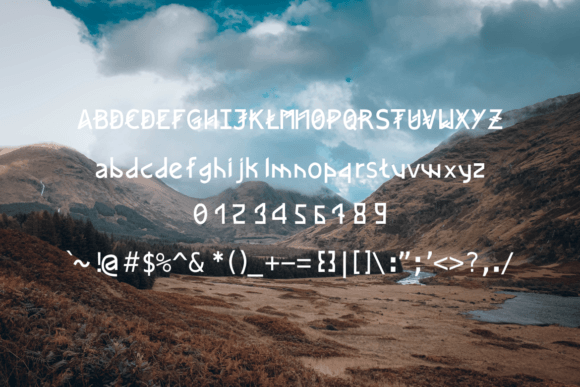
Enter Anamis Font, a cool and whimsical sans serif display font that adds a touch of magic to any project. Designed to add a playful twist to your most creative ideas, Anamis Font is the perfect companion for designers looking to push the boundaries of their work. Whether you’re working on a branding project, a social media campaign, or a simple poster, Anamis Font is sure to elevate your design and leave a lasting impression.
Anamis Font Key Features
- Unique Characteristics: Anamis Font boasts a unique blend of modern and vintage elements, featuring elegant curves and subtle geometric patterns, making it an ideal choice for creative and artistic projects.
Anamis Font Review
I recently had the chance to work with the Anamis Font, and I must say, it’s an interesting addition to any designer’s toolkit. ✨ One of the things that I appreciate is its versatility. It comes in a wide range of weights and styles, making it suitable for a variety of projects, from body text to display headers.
Another thing that stands out is its high-quality aesthetic. The font’s unique blend of modern and organic elements creates a visually appealing and unique look that’s sure to capture attention. ✨ The Anamis Font is perfect for designers looking to add a touch of sophistication and elegance to their work.
While the Anamis Font has its strengths, there are some limitations to consider.
- ⚠️ Limited language support: The font doesn’t support a wide range of languages, which may be a concern for designers working on international projects.
- ⚠️ Limited character set: The font’s character set is relatively limited, which may make it less suitable for projects requiring a wide range of characters.
Overall, the Anamis Font is a solid choice for designers looking to add a unique touch to their work. While it has some limitations, its versatility and high-quality aesthetic make it a great addition to any toolkit. With some careful planning and consideration, the Anamis Font can be a valuable asset for designers looking to create visually stunning work.
Tips for Getting the Most Out of Anamis Font
Anamis Font is ideal for creative and artistic projects. Use it to add a touch of elegance and sophistication to your designs. Experiment with different font sizes and styles to create visual interest.
Anamis Font is commonly used in:
– Creative branding projects
– Artistic illustrations
– High-end marketing materials
– Luxury product packaging